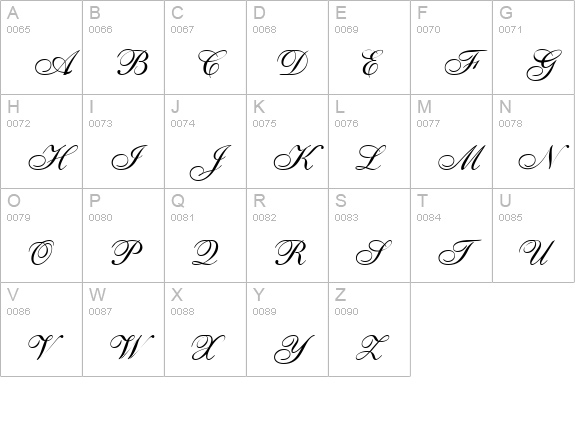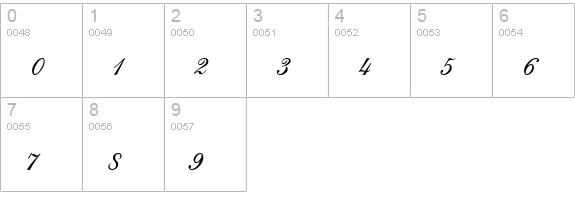
Sheer Elegance Regular Font Details
Sheer Elegance Regular is the standard, neutral variant in the Sheer typeface family \xE2\x80\x94 well suited to general body text, paragraphs, and standard typographic work.
Introducing Sheer Elegance Regular font, a timeless and sophisticated typeface that exudes a sense of refined beauty. With its delicate yet strong curves, this font embodies sheer elegance in every character, making it the perfect choice for projects that require a touch of class and sophistication. Sheer Elegance Regular font effortlessly combines classic design elements with a modern twist, resulting in a truly unique and versatile typeface. Its clean lines and balanced proportions create a harmonious composition that is pleasing to the eye, while its subtle details add a touch of personality and charm. Whether used for formal invitations, elegant branding, luxurious packaging, or any other creative endeavor, Sheer Elegance Regular font will elevate your designs to new levels of sophistication. Its versatility allows it to seamlessly blend with various design styles, making it a go-to choice for both print and digital projects. And the best part? Sheer Elegance Regular font is available for free! Yes, you read that right. This exquisite font can be freely downloaded at FontsMarket.com, ensuring that you have access to top-quality design resources without breaking the bank. So why wait? Experience the sheer elegance of Sheer Elegance Regular font and elevate your designs to new heights. Download it today at FontsMarket.com and unleash your creativity with this timeless and captivating typeface.